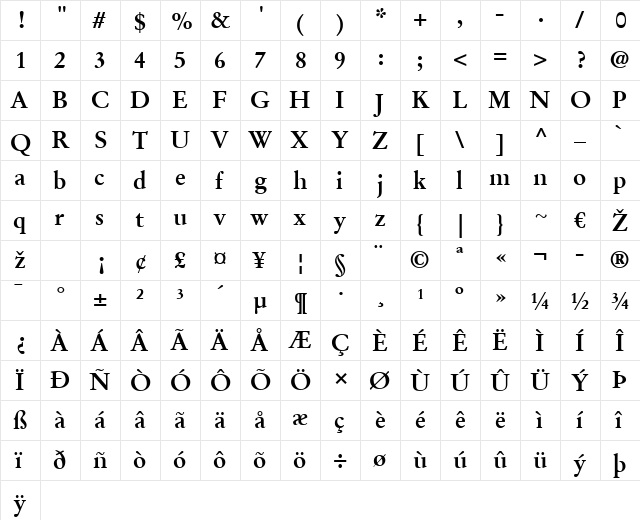
StempelGaramond LT Roman Bold
Design Context for StempelGaramond LT Roman Typeface
StempelGaramond LT Roman is a composed and adaptable typeface that performs quietly and consistently across a wide range of design contexts. The heavy weight commands attention and anchors typographic hierarchies.